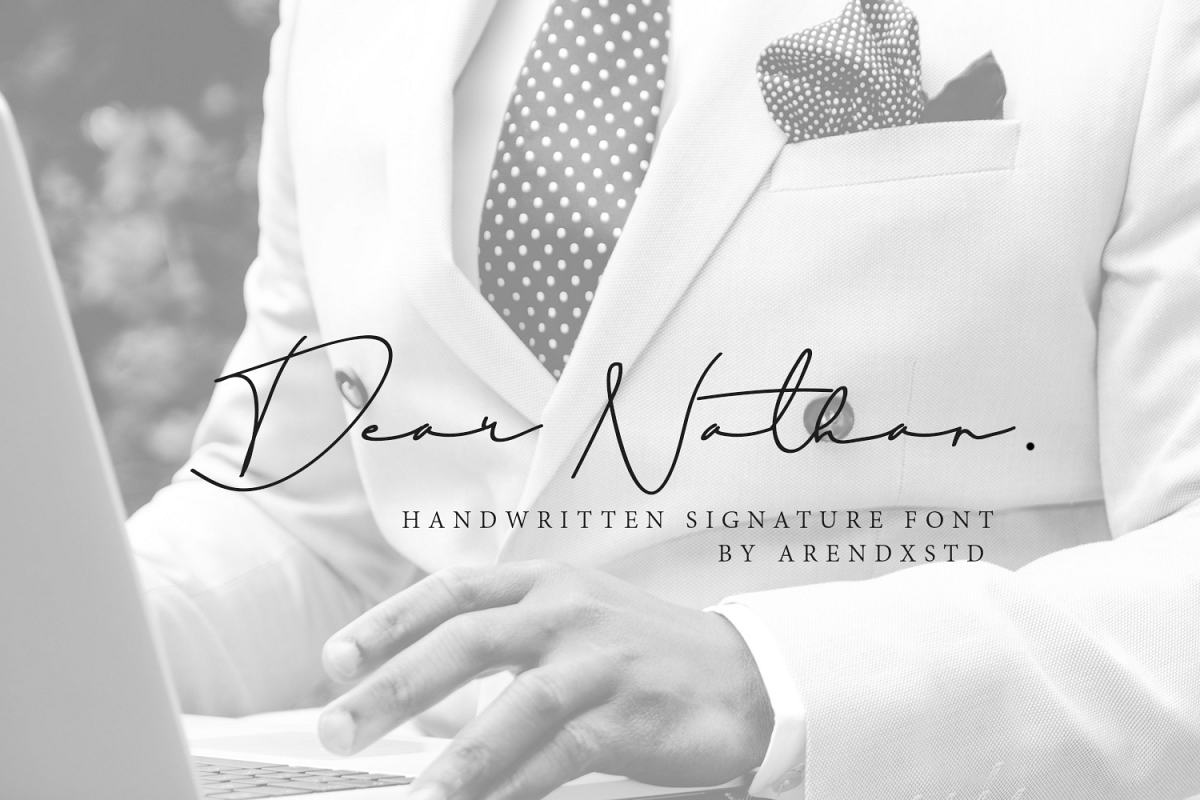
Dear Natha Handwritten Signature
Dear Nathan
Introducing my latest font is "Dear nathan" handwritten font which is very elegant and modern for you to use and your design interests be itfor logos, branding names, posters, podcasts and so on. This is perfect for you all